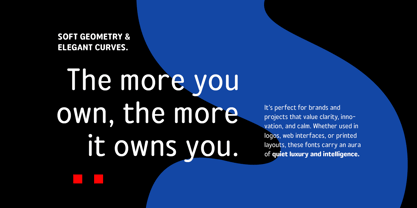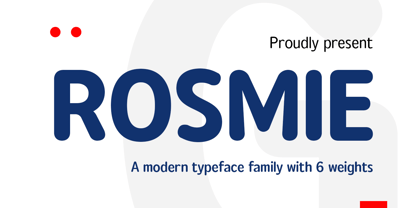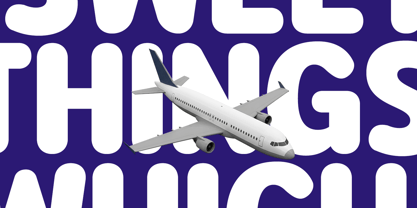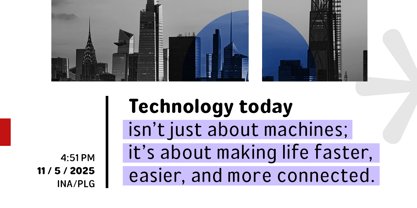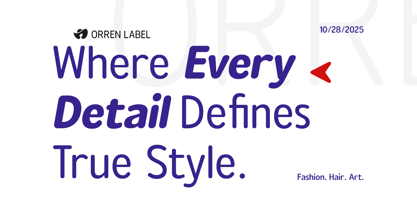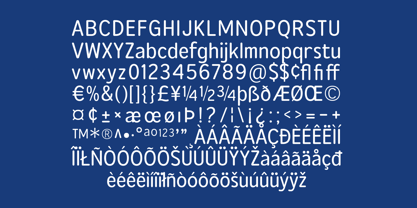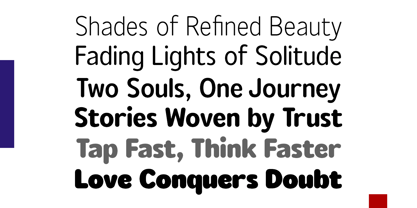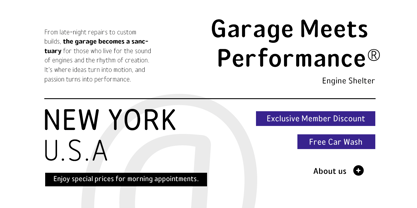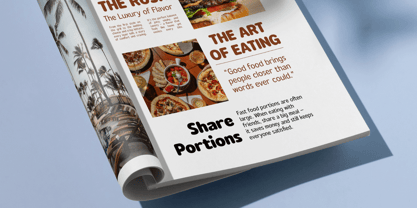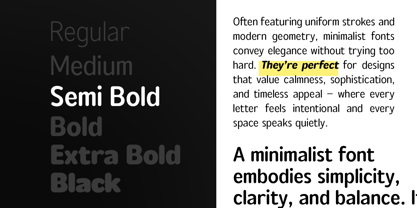
Rosmie
The Rosmie Font Family was designed by Ahmad Ramzi Fahruddin and published by Arterfak Project. Rosmie contains 6 styles and family package options. More about this family
Rosmie is a rounded sans-serif family inspired by classic typefaces from the 1970s. It is thoughtfully designed not only as a display font but also with readability in mind, making it suitable for body text as well. This font offers a clean yet playful look that can be applied to various projects such as magazines, logos, books, labels, posters, websites, and branding materials. There are 6 weights from Regular to Black, includes slanted styles for added versatility. Rosmie is more than just a font family — it's a celebration of joyful creativity.